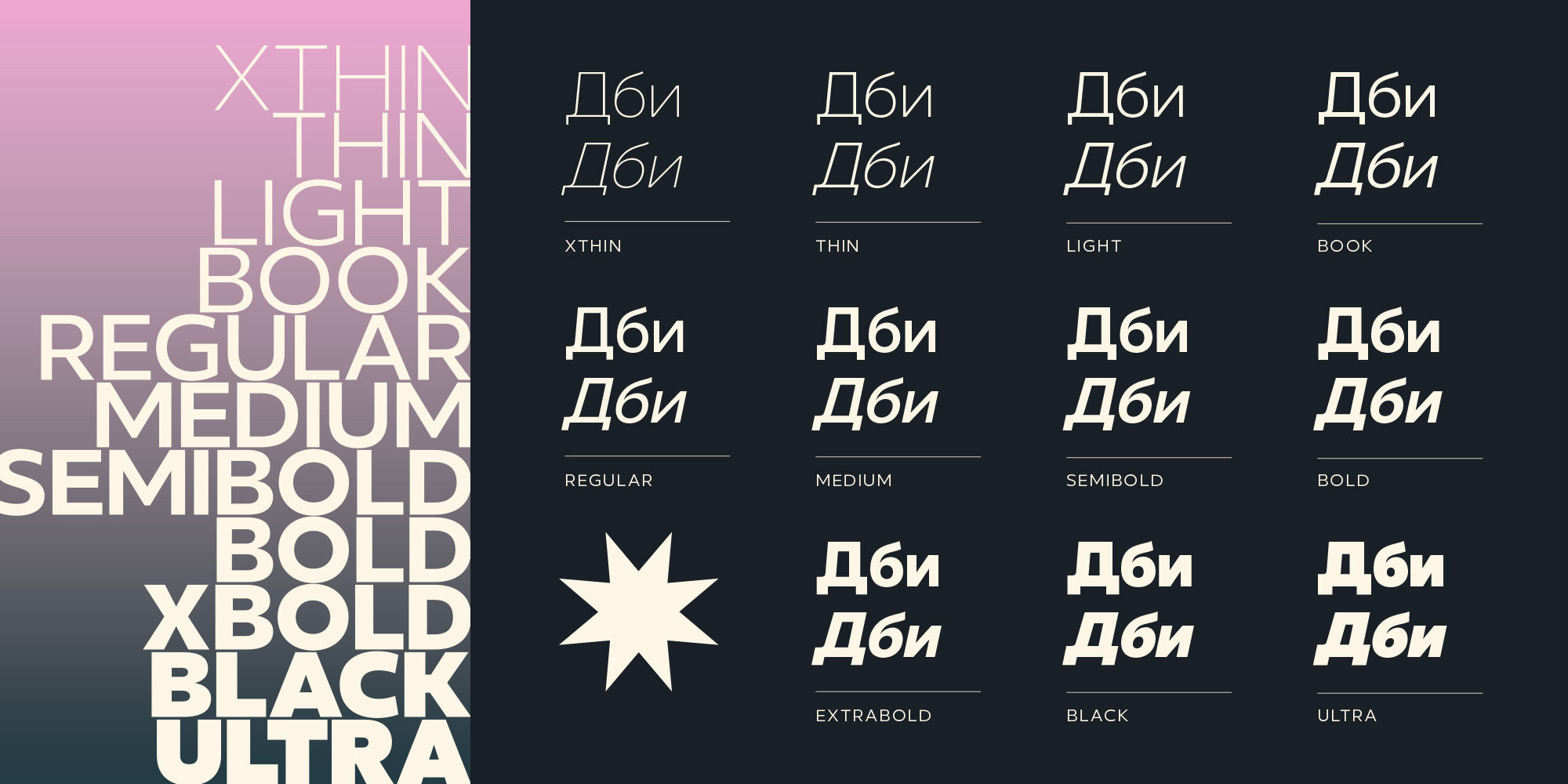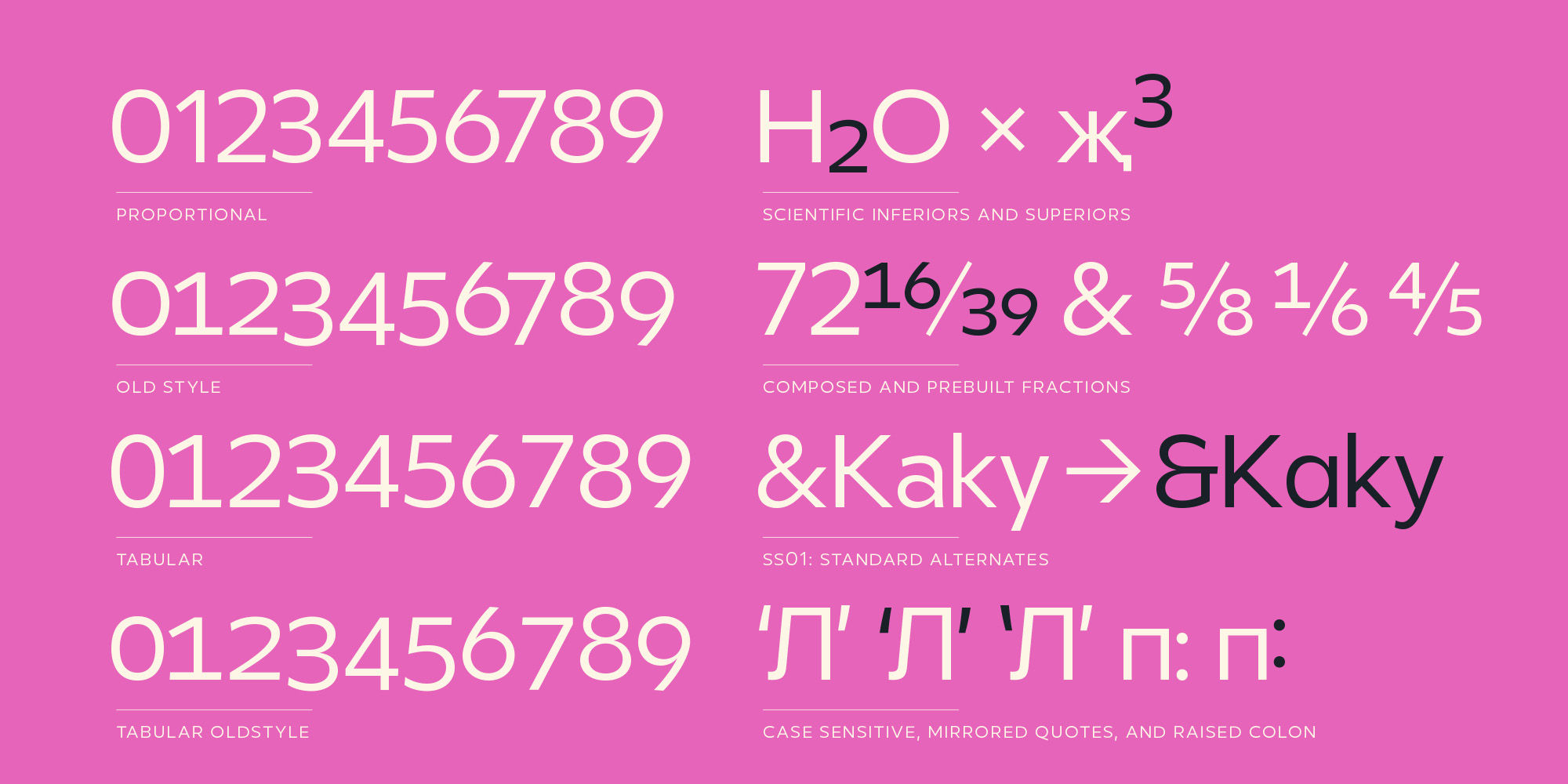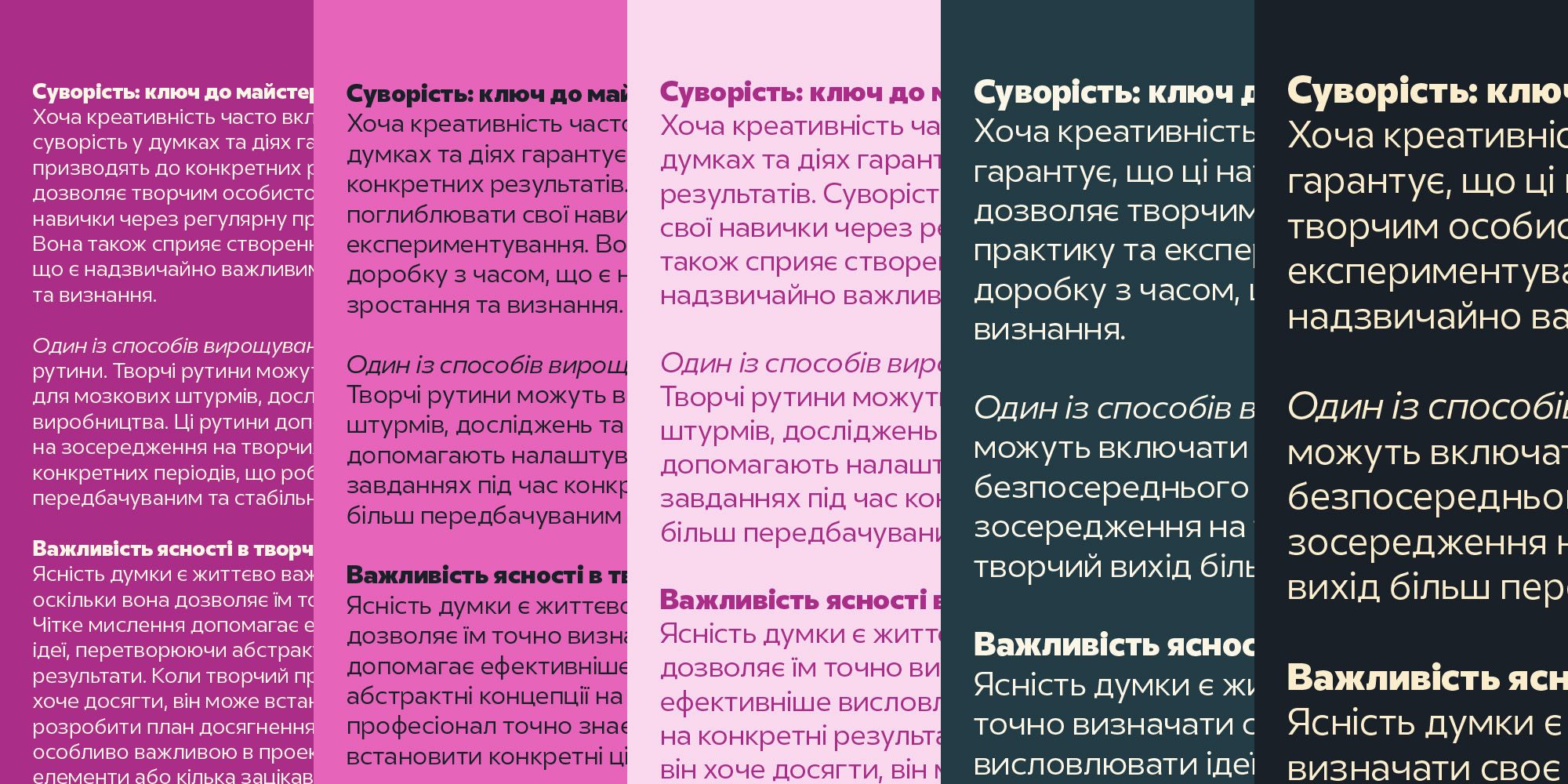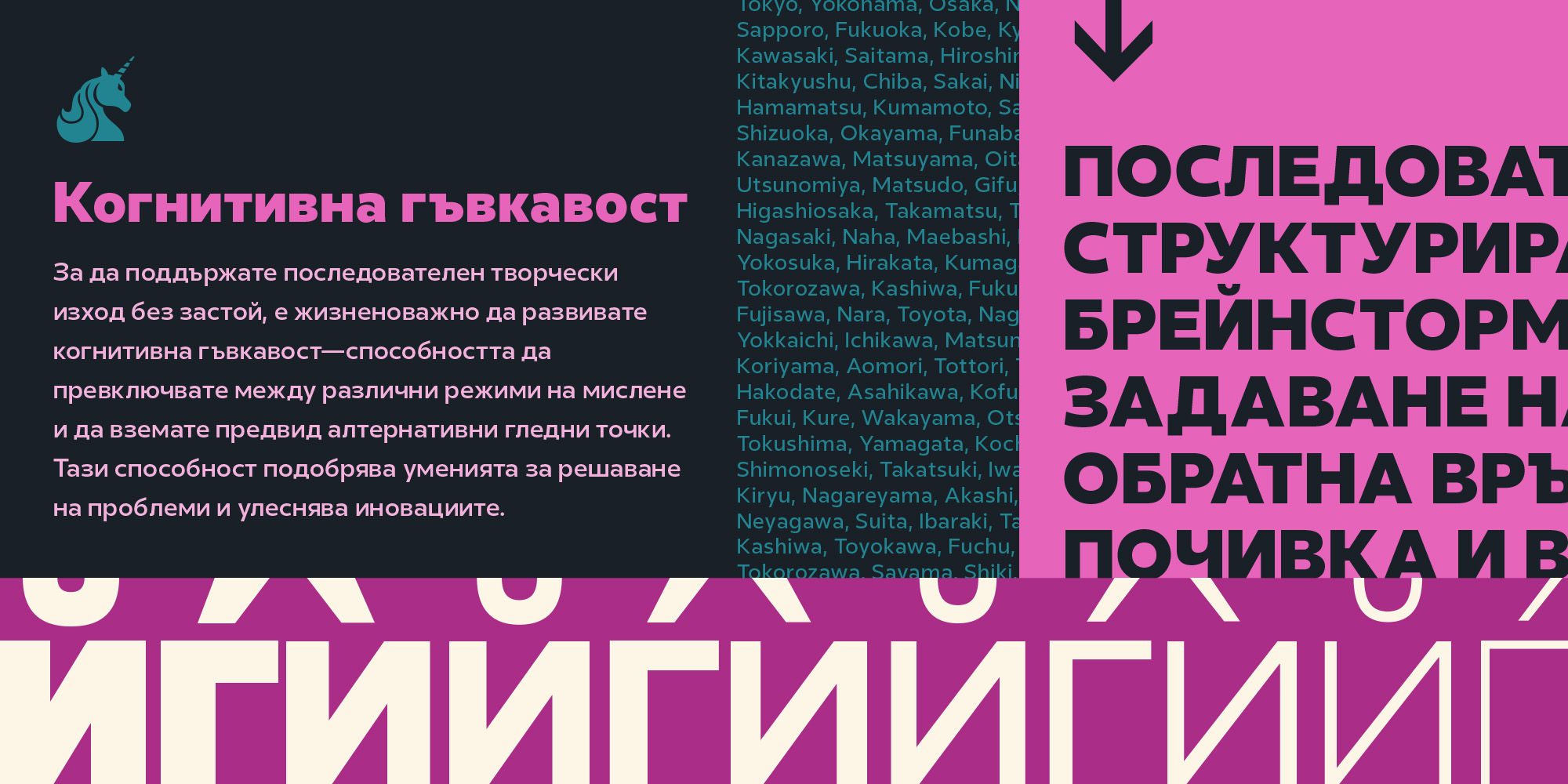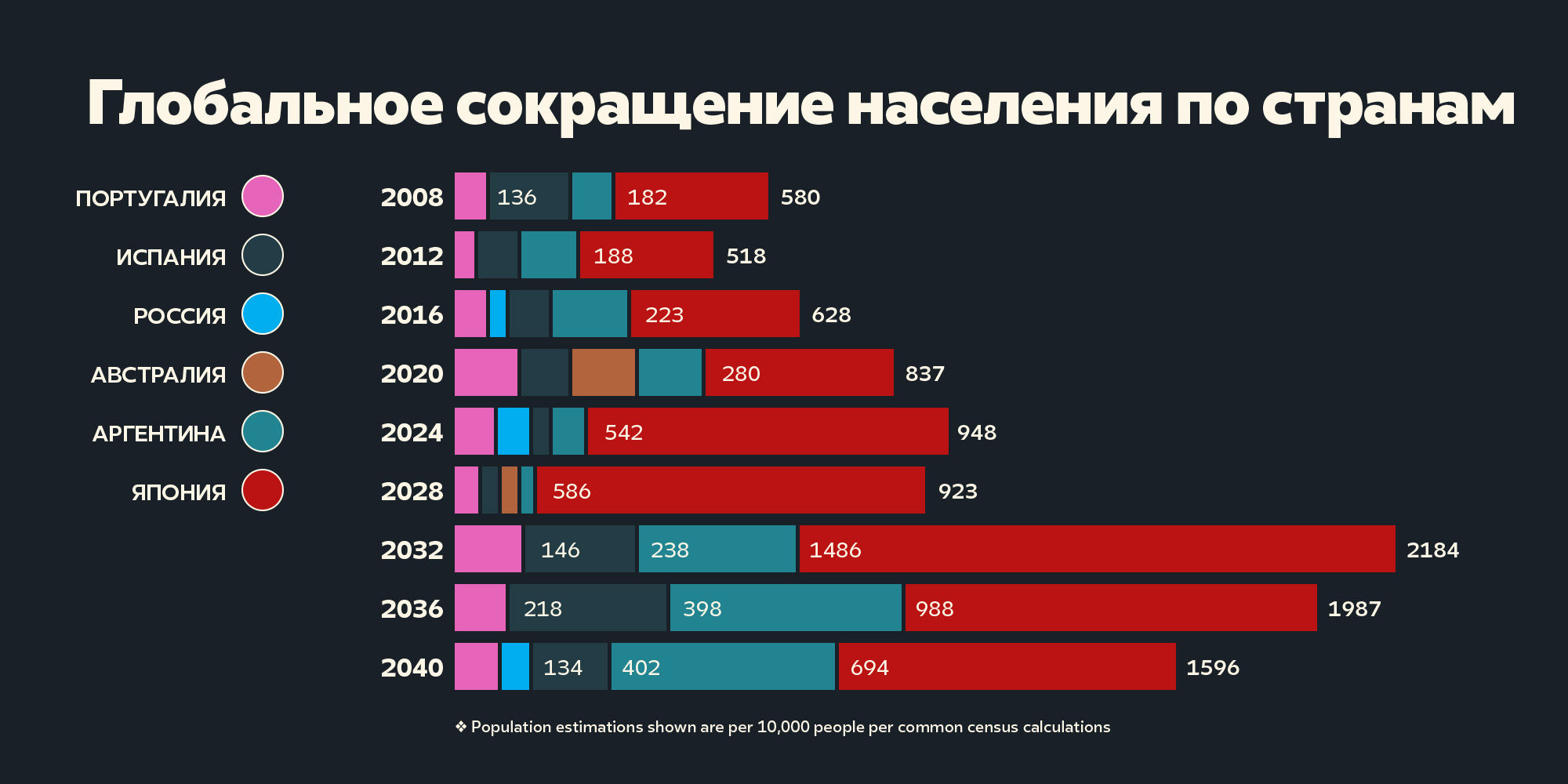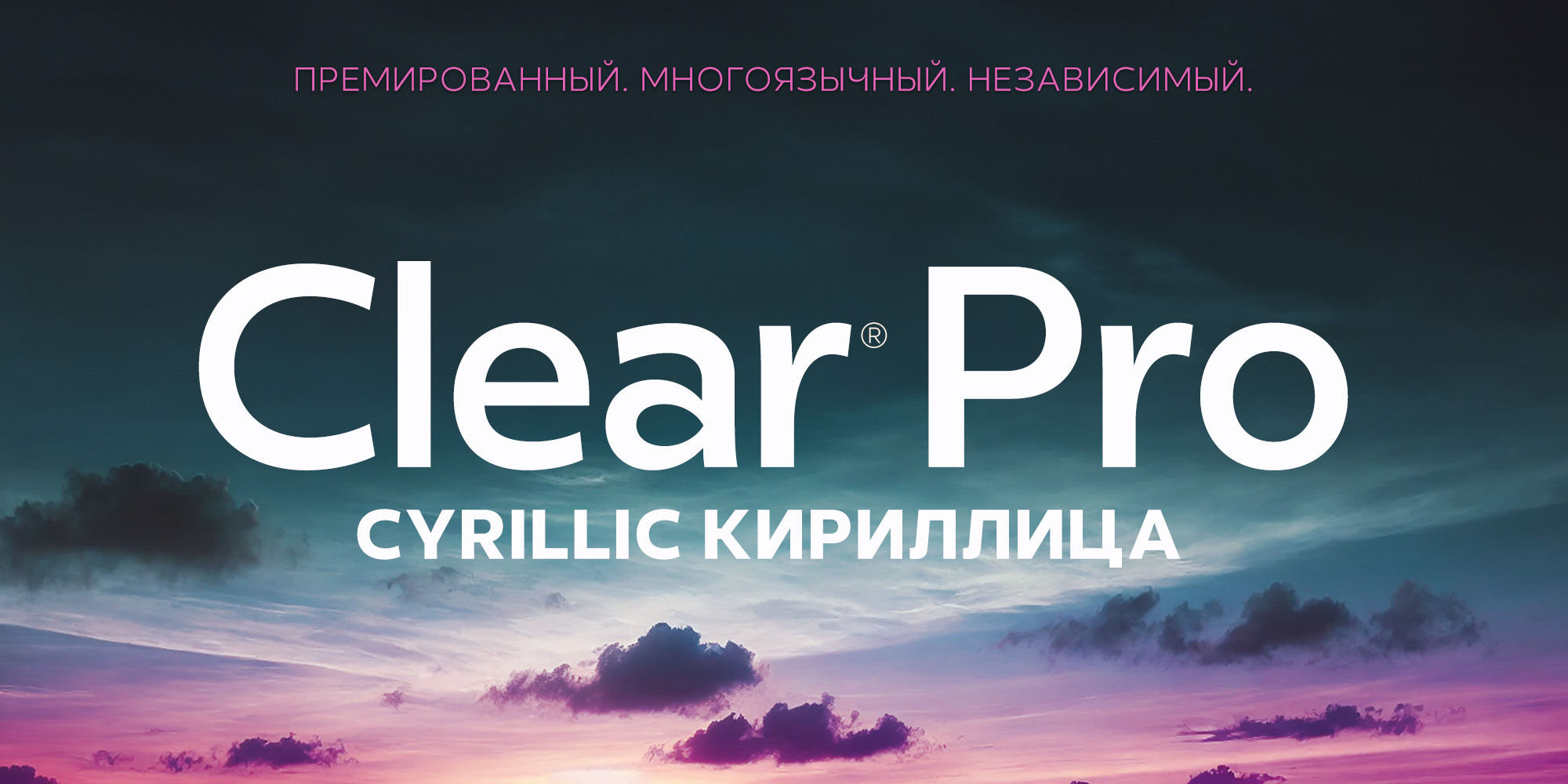
Clear Кириллица
Th ffi ffl
Standard Ligaturesliga
Small Caps
Small Capssmcp
12345/67890
Fractionsfrac
x2+y3=z41
Superscriptsups
H2O4 CH3
Scientific Inferiorssinf
1st 2nd 3rd
Ordinalsordn
[H] H@ ¿H
Case-Sensitive Formscase
0123456789
Oldstyle Numeralsonum
0123456789
Tabular Numeralstnum
K a y &
Stylistic Set 1ss01
Winner of the 2024 Communication Arts Award of Excellence. Clear Sans™ Pro is a rational geometric sans serif designed to provide an alternative to vernacular and geometric typefaces. Originally hand-painted in 2008, it was completed for a friend's identity and later expanded. Inspired by the bold, straightforward lettering of early 20th-century signage, Clear Sans™ Pro combines precision with warmth. It offers a comprehensive range of weights, widths, italics, and an extensive character set, making it both familiar and versatile. Clear Sans™ Pro balances assertiveness and friendliness, bringing a sophisticated yet approachable tone to any design.
Clear Sans™ Pro has been further expanded to support a variety of scripts, including Arabic, Cyrillic, Greek, Japanese, Khmer, Korean, Lao, and Thai. This extensive script coverage ensures Clear Sans™ Pro maintains its versatility and accessibility across different languages and cultural contexts, making it an ideal choice for global brands and multilingual projects.